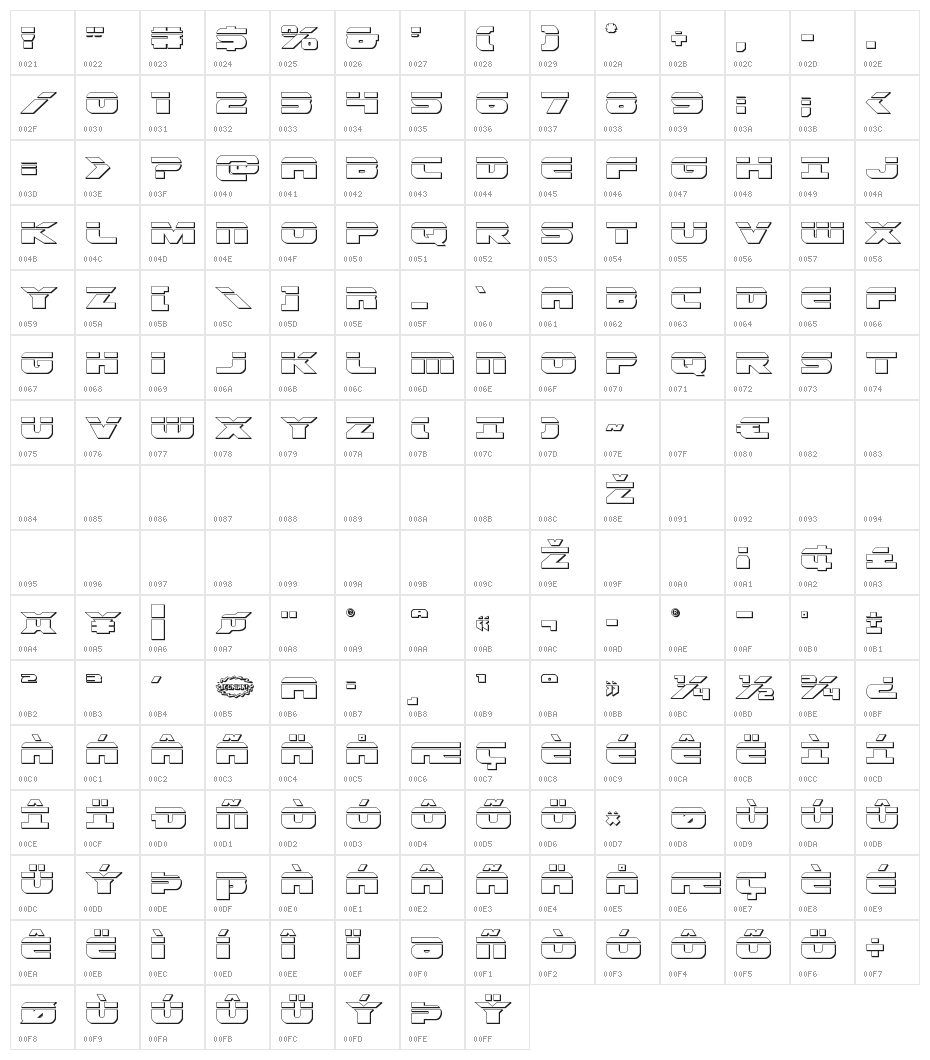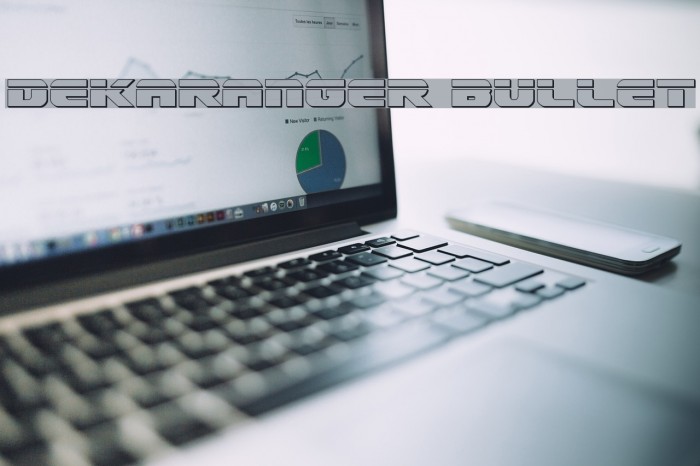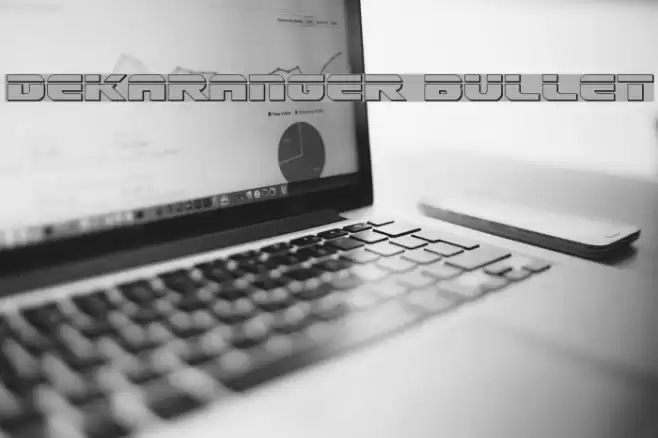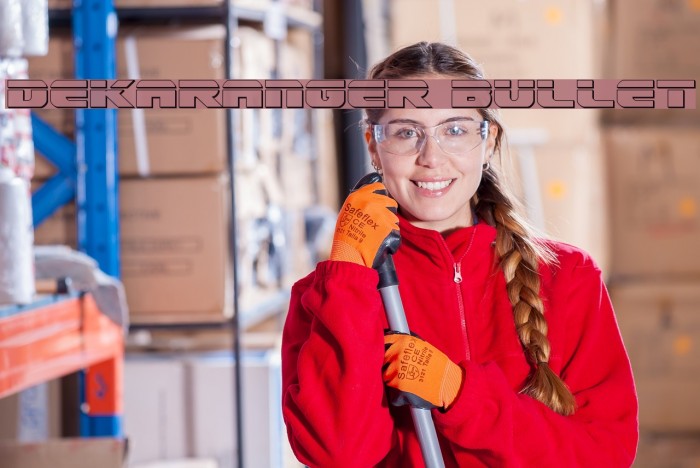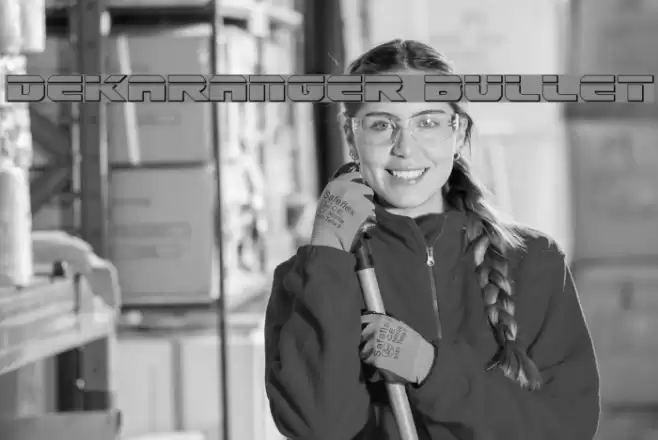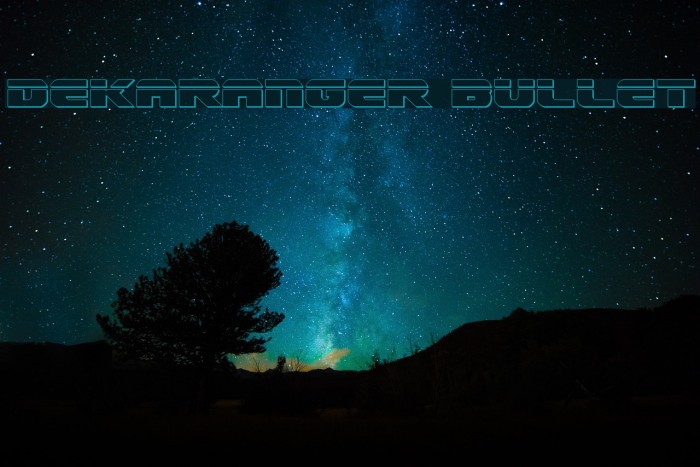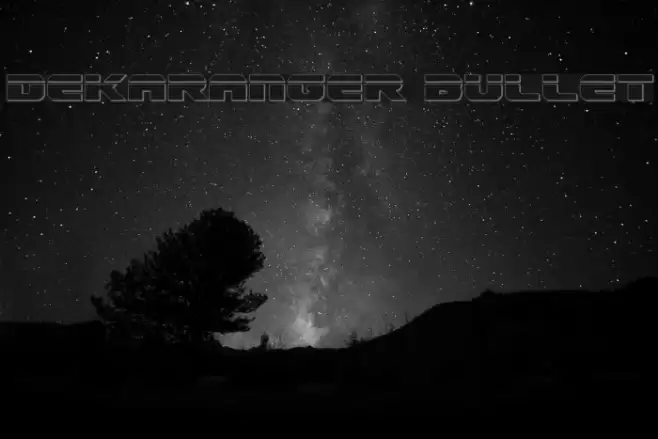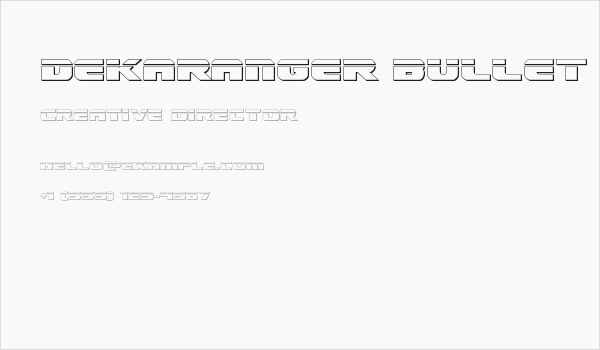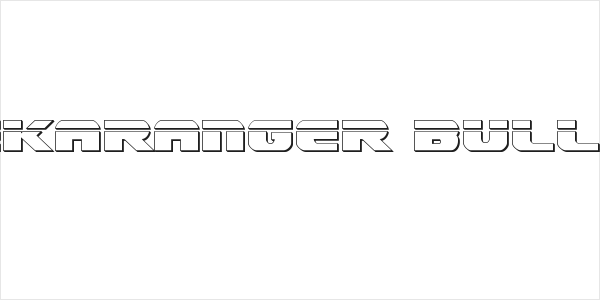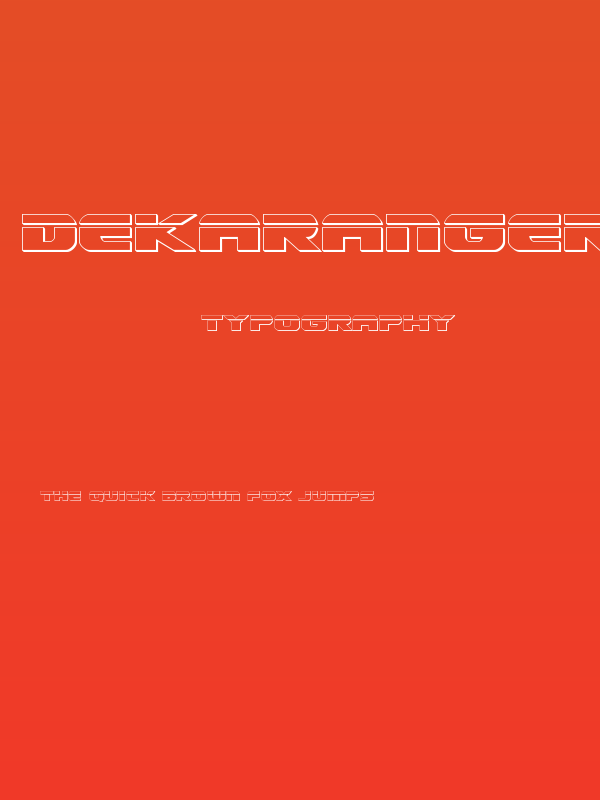
Dekaranger Bullet Font
Dekaranger Bullet Description
This font features a futuristic and geometric design, characterized by bold, angular lines and a distinct outline style. The uppercase and lowercase letters are uniform in height, creating a cohesive and structured appearance. The numerals and special characters maintain the same aesthetic, ensuring consistency across all glyphs. The font's unique style is reminiscent of digital or sci-fi themes, making it ideal for projects that require a modern and edgy look. Its outlined nature adds a layer of depth and dimension, making it stand out in various design applications.
| Proposed Projects | Ideal for sci-fi themed designs, video game titles, tech branding, and futuristic posters. |